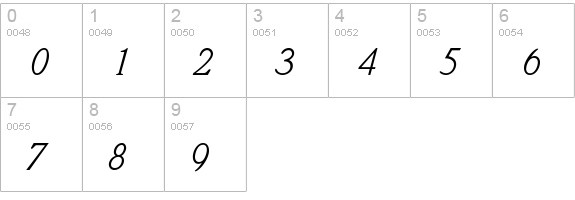
WeidemannEF-BookItalic font is a stunning and versatile typeface that will elevate any design project. With its elegant and sophisticated letterforms, this font exudes a sense of professionalism and refinement. The soft curves and delicate angles give it a unique and timeless appeal. One of the standout features of WeidemannEF-BookItalic font is its versatility. Whether used for headlines, body text, or even logos, this font effortlessly adapts to any context. It brings a touch of elegance to any design while maintaining readability and legibility. Not only is WeidemannEF-BookItalic font aesthetically pleasing, but it is also incredibly user-friendly. Its well-crafted characters ensure smooth and consistent spacing, making it a joy to work with. The attention to detail in this font is evident in every aspect, from the finely balanced strokes to the subtle curves. What sets WeidemannEF-BookItalic font apart is its accessibility. It is freely available to download at FontsMarket.com, allowing designers, artists, and enthusiasts to easily incorporate this exceptional typeface into their projects. This font opens up a world of possibilities, enabling creativity to flourish without any constraints. Whether you are designing a magazine layout, creating a brand identity, or crafting a wedding invitation, WeidemannEF-BookItalic font is the perfect choice. Its timeless elegance, versatility, and accessibility make it an invaluable asset to any designer's toolkit. Embrace the beauty and refinement of WeidemannEF-BookItalic font and watch your designs come to life.